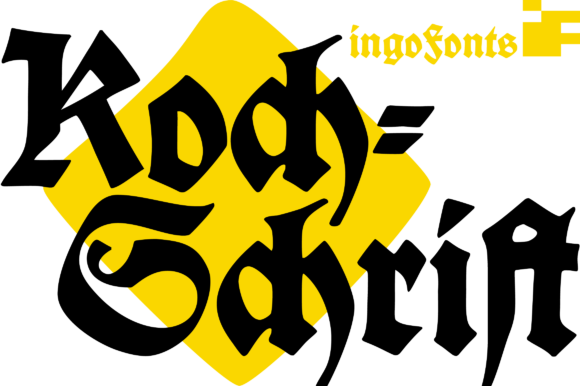
Unleash the Timeless Elegance of Koch Schrift: A Blackletter Font with a Vintage Charm
Journey through time with Koch Schrift, an extraordinary blackletter font that exudes a captivating vintage charm. Crafted by the masterful ingoFonts, this font is a testament to artistic excellence, capturing the essence of bygone eras. Its bold lines and intricate details evoke a sense of nostalgia, making it the perfect choice for projects seeking a classic and sophisticated touch.
Immerse yourself in the world of vintage design with Koch Schrift. Let its intricate flourishes and elegant curves transport you to a time of quill pens and parchment. Whether you're creating invitations, posters, logos, or any other project that calls for a touch of timeless elegance, Koch Schrift will effortlessly elevate your designs.
Experience the versatility of Koch Schrift as it seamlessly adapts to a wide range of creative endeavors. Its bold and eye-catching presence makes it ideal for headlines, titles, and logos, while its intricate details add a touch of sophistication to body text. Whether you're working on a branding project, a marketing campaign, or a personal creative project, Koch Schrift has the power to transform your vision into a masterpiece.
Captivate your audience with the unique beauty of Koch Schrift. Its vintage charm and bold lines are guaranteed to make a lasting impression. Let your designs speak volumes with this exceptional font, conveying a sense of heritage, elegance, and timeless appeal. Join the ranks of creative professionals who have discovered the magic of Koch Schrift, and elevate your projects to new heights of visual excellence.